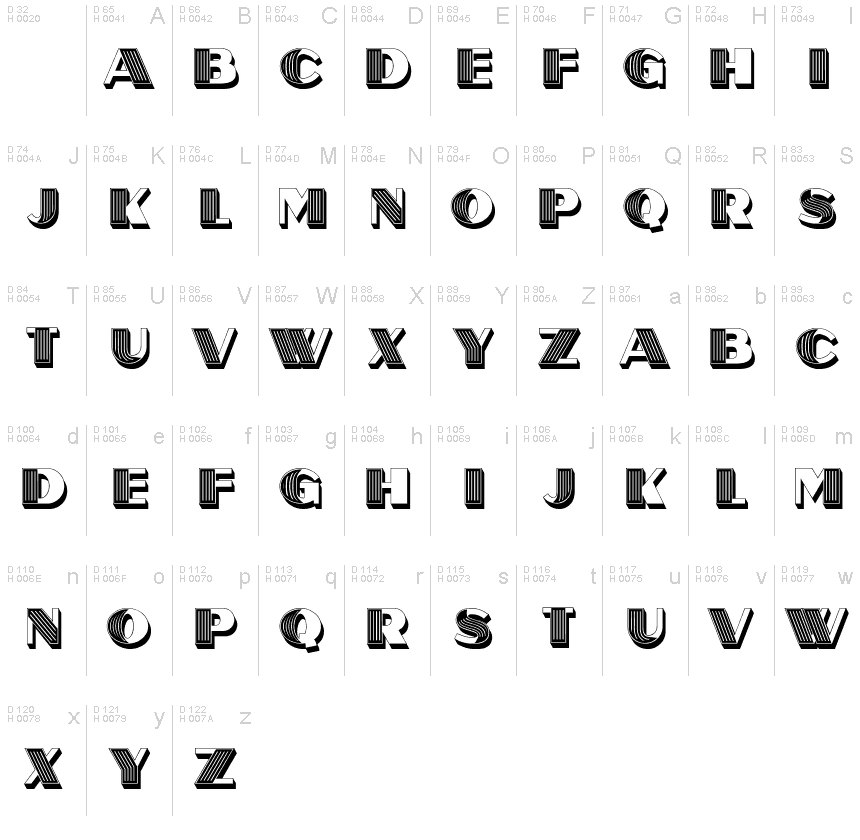
Overhead Abstract Regular
Overhead Abstract font is a bold retro typeface designed by Vladimir Nikolic.
It comes in Regular, Hollow, Rustique, Rustique Filled and Abstract variant!